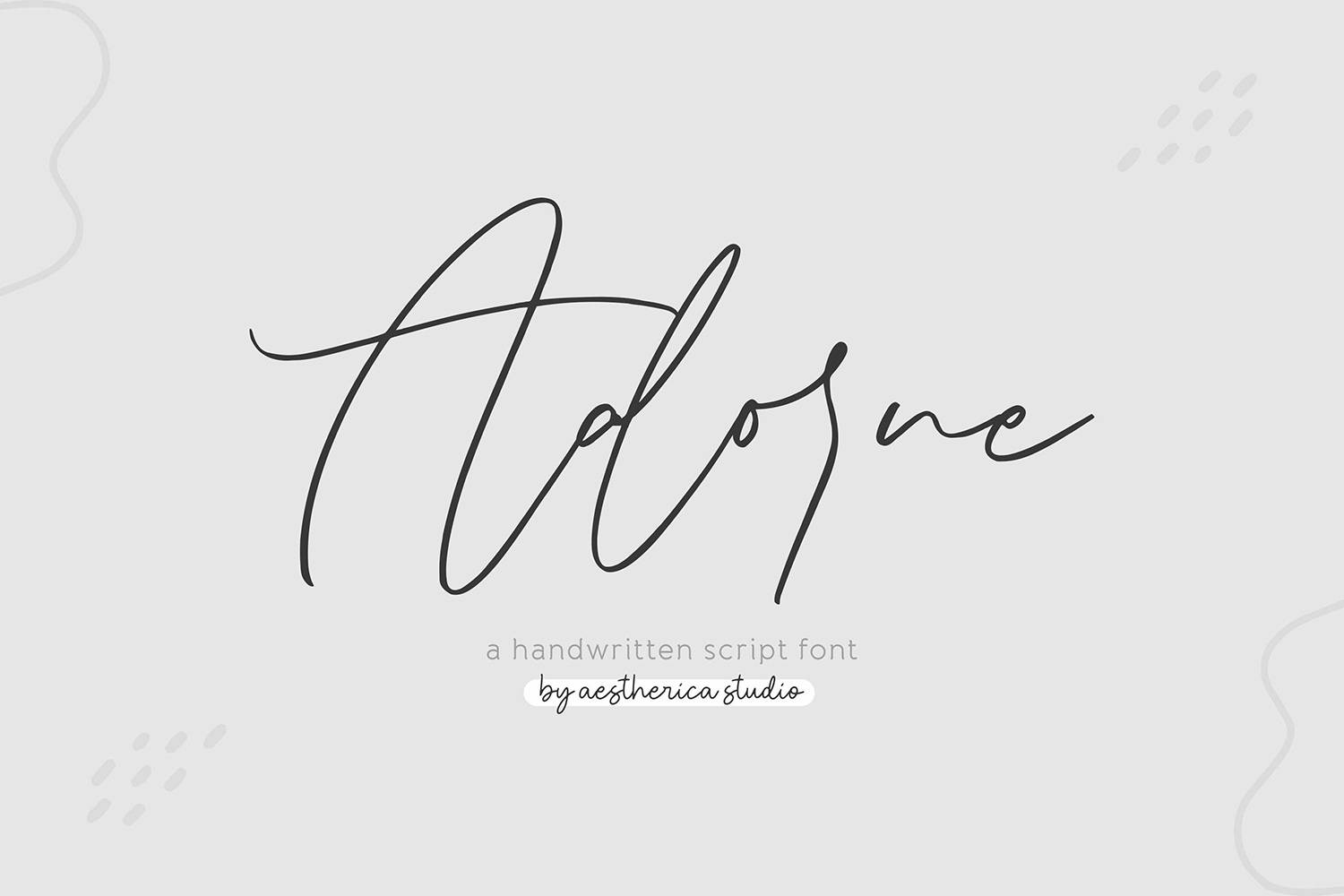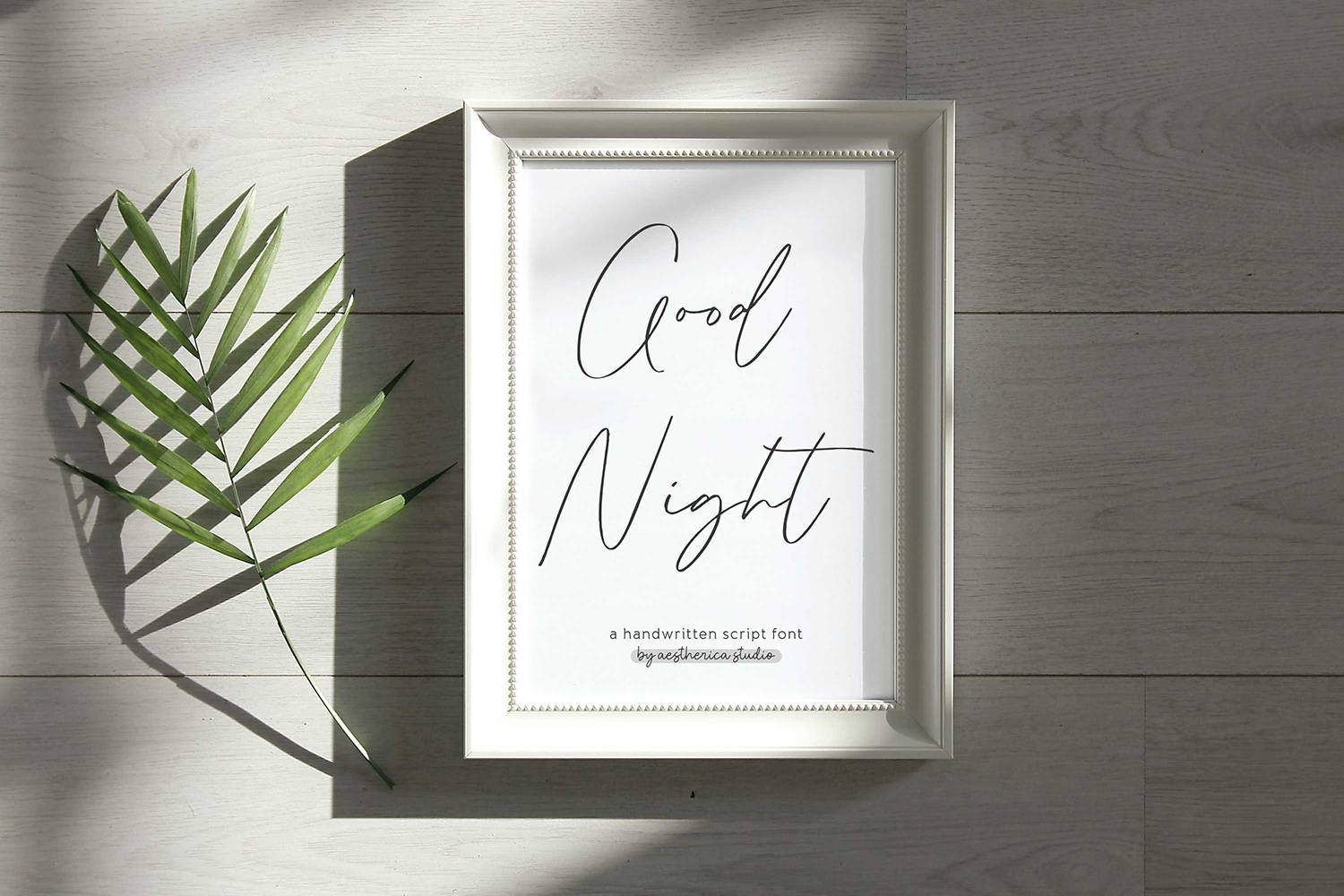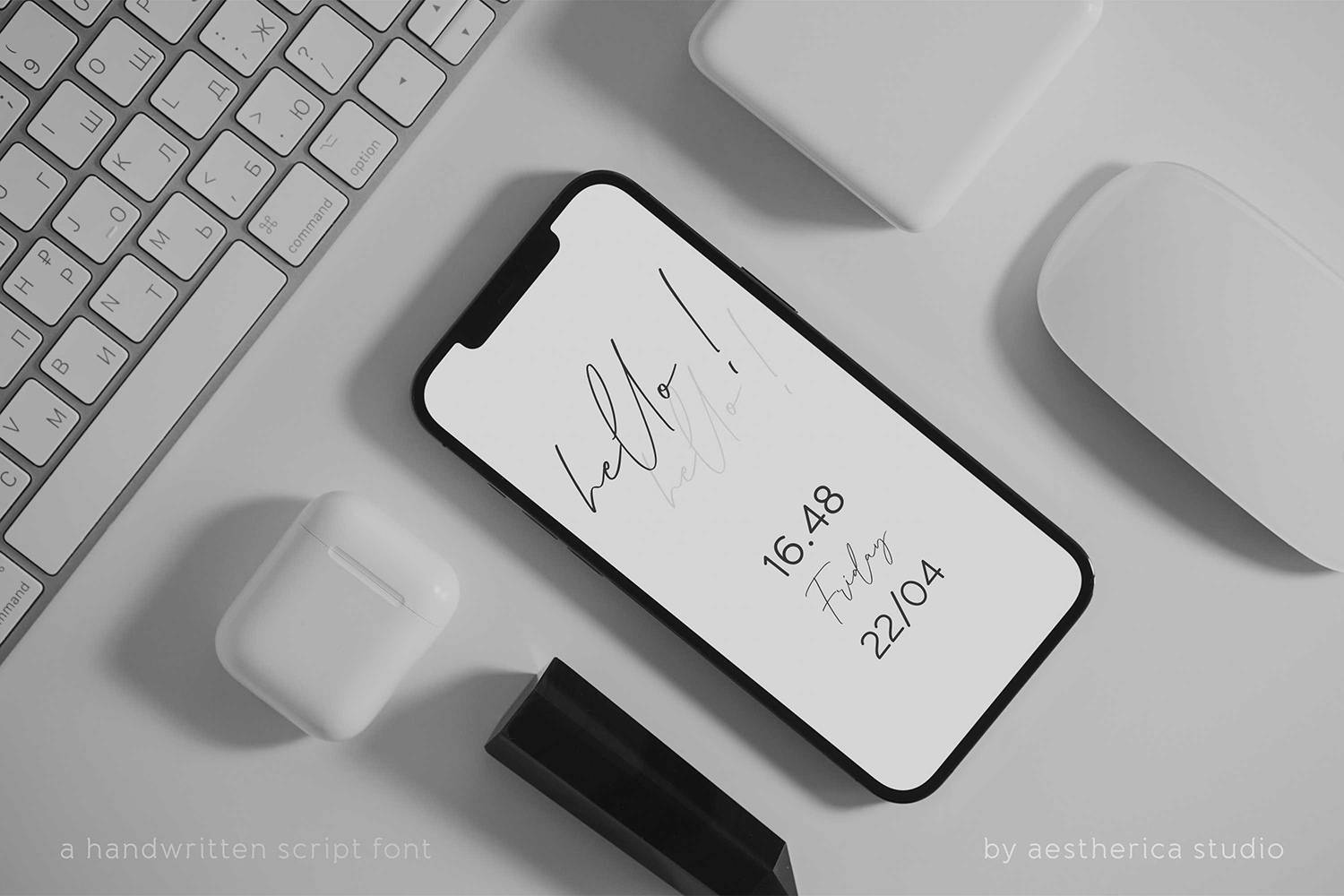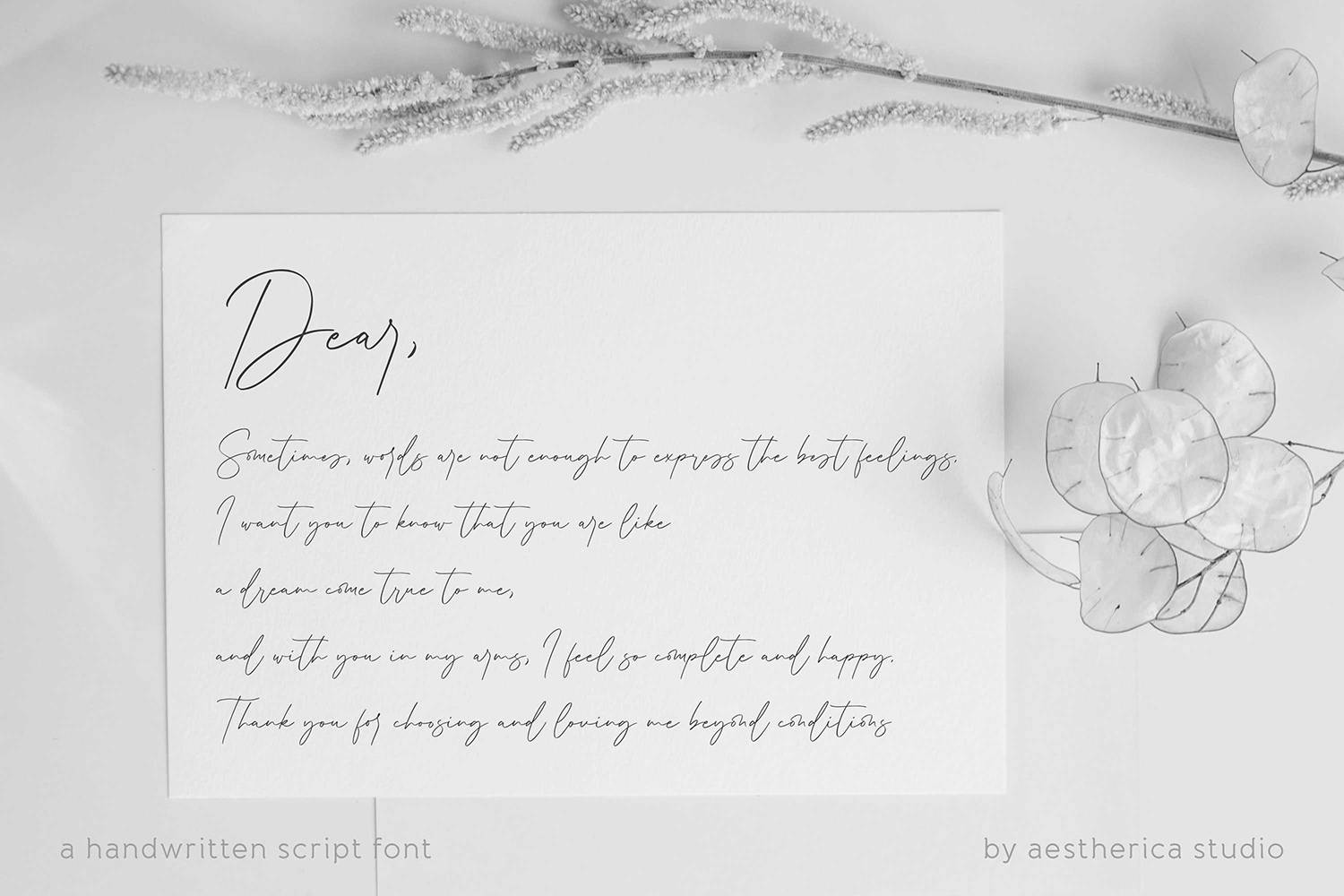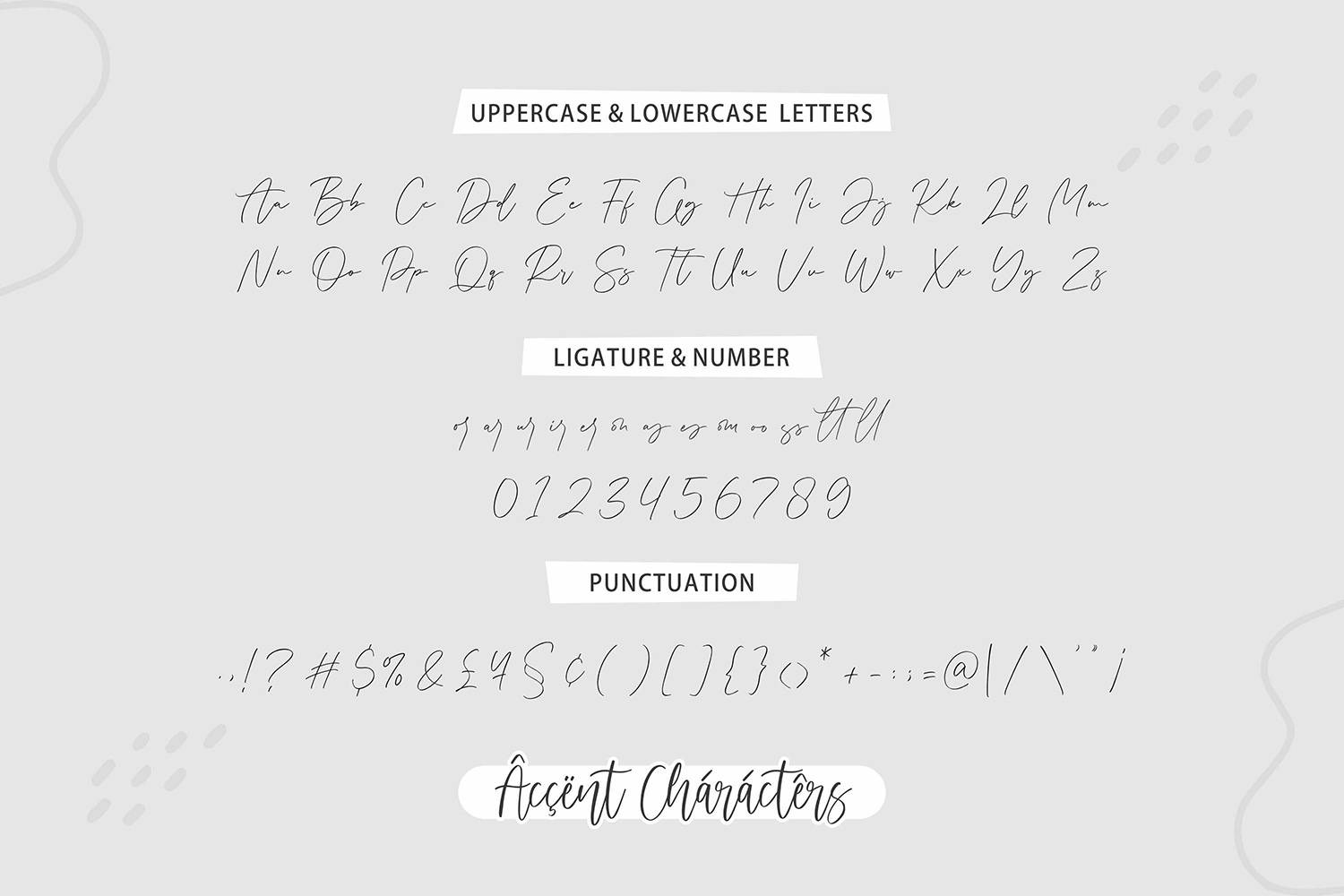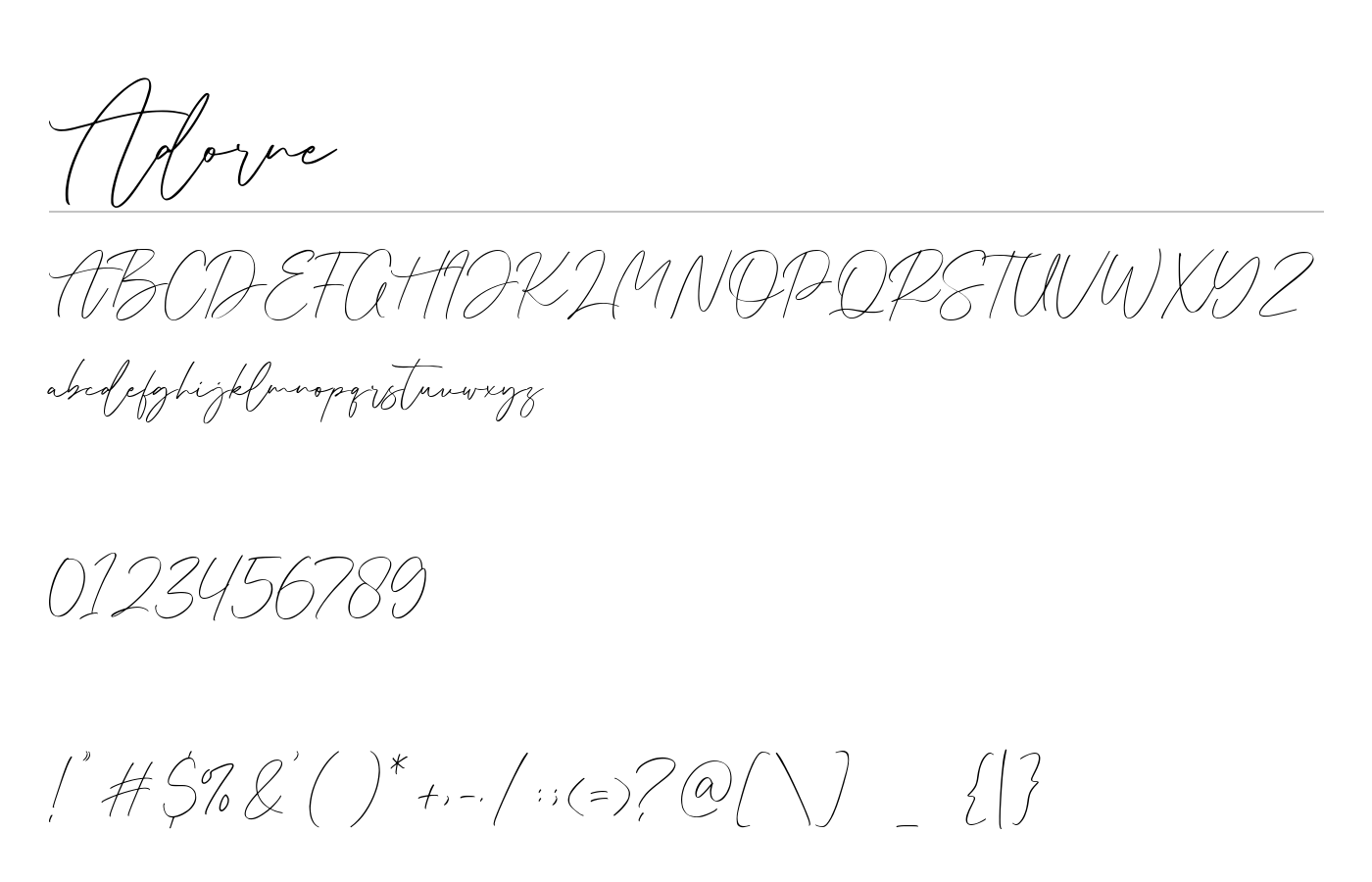
Adorne is an elegant, delicate script font characterized by its thin, flowing strokes and refined, handwritten style. Its airy and graceful letterforms make it ideal for luxury branding, wedding invitations, and sophisticated editorial use, where a touch of femininity and finesse is desired. This font works beautifully in headlines and decorative text, adding a personal and stylish flair without overpowering the design.
Adorne Font
About Adorne Font